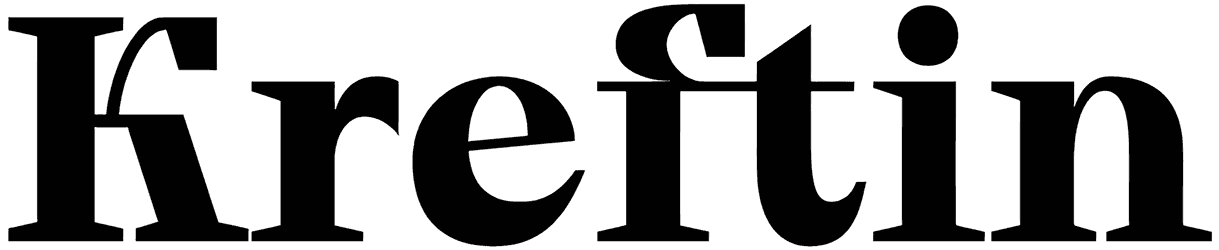
Kreftin Font
Here is Kreftin, a ligature serif font, depicting the old times of history. Whether you want to induce a vintage touch or amusing typography, this font will do the trick. Some letters have a unique feature to draw attention to the project and their own good legibility.
Therefore, it is perfect for book covers and even context, newspapers, posters, historical movie titles, and logo designers who want their work to be more trustworthy.